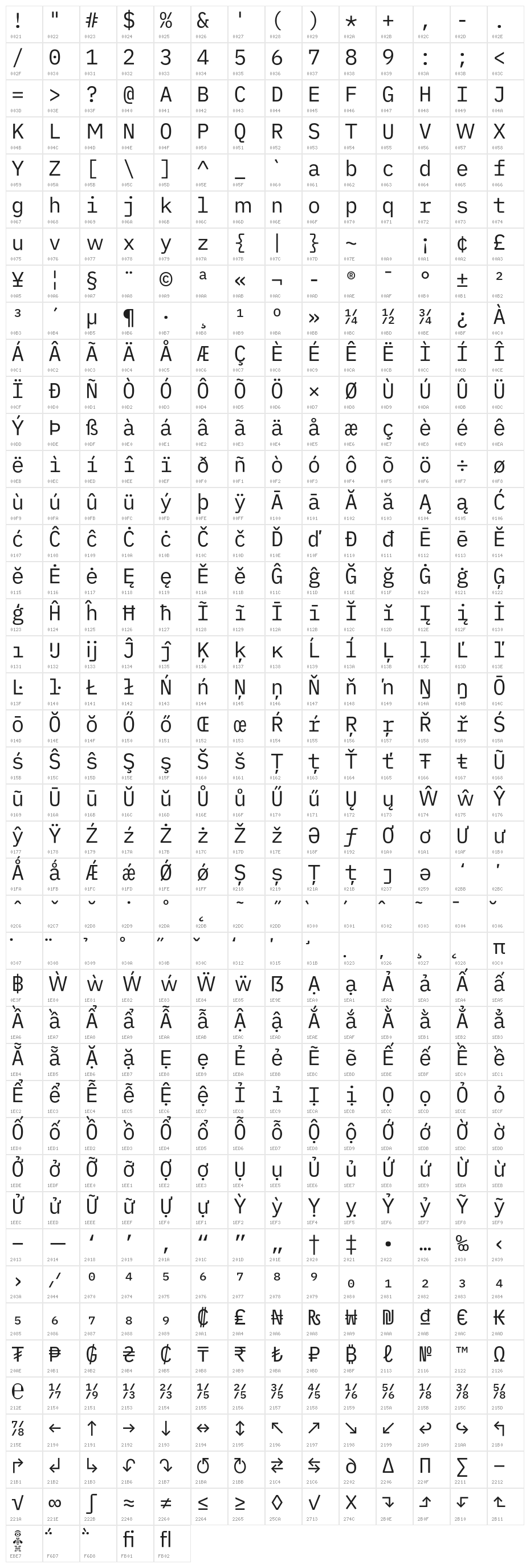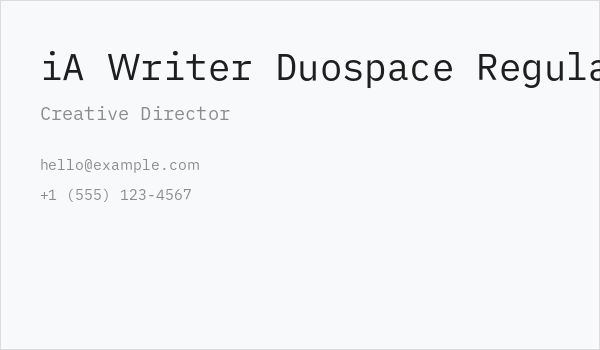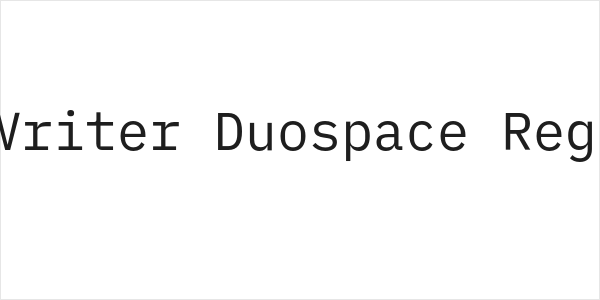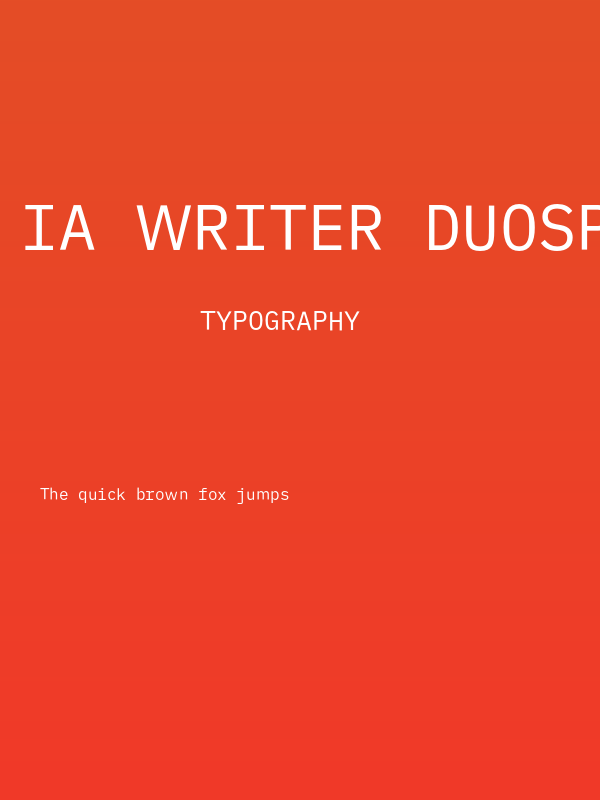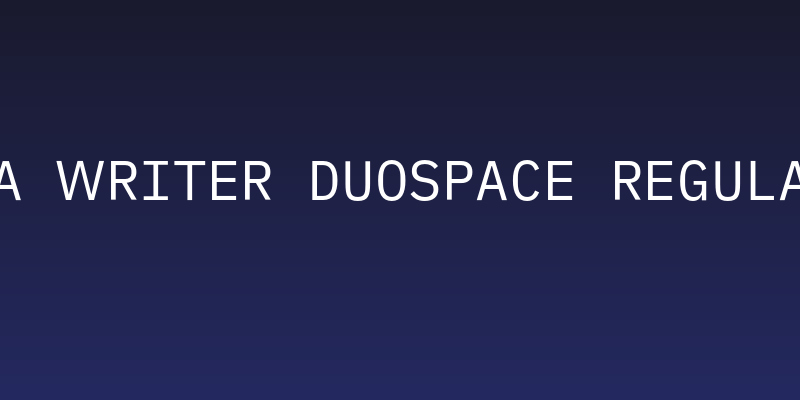
iA Writer Duospace Regular Font
iA Writer Duospace Regular Description
This font features a clean and modern sans-serif design with a monospaced style, providing a balanced and uniform appearance. The characters are evenly spaced, contributing to a clear and organized look, ideal for readability in digital formats. The strokes are consistent in width, offering a low contrast that enhances its legibility. The font's simplicity and straightforwardness make it suitable for a variety of applications, from coding environments to minimalist design projects. Its geometric shapes and precise alignment give it a contemporary and professional feel.
| Use Case | Coding, Technical documentation, Digital interfaces |
| Proposed Projects | Ideal for coding, technical documentation, minimalist design projects, and digital interfaces. |